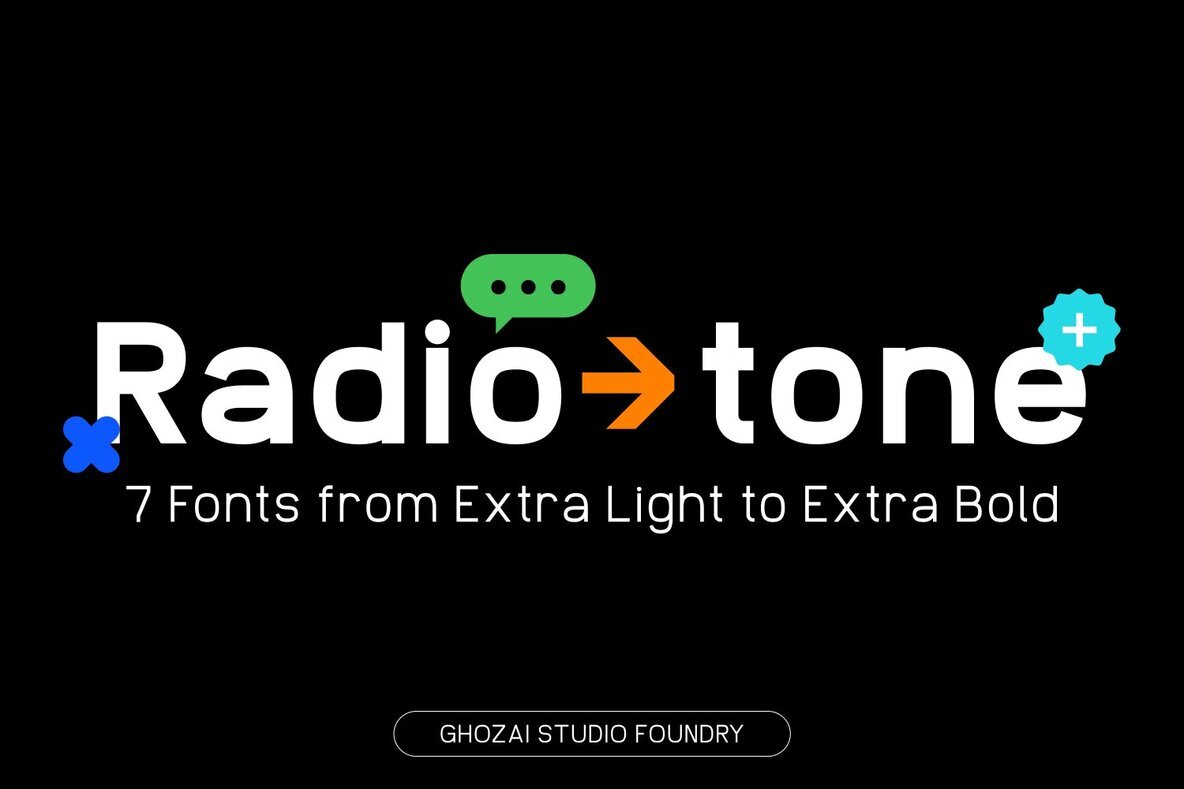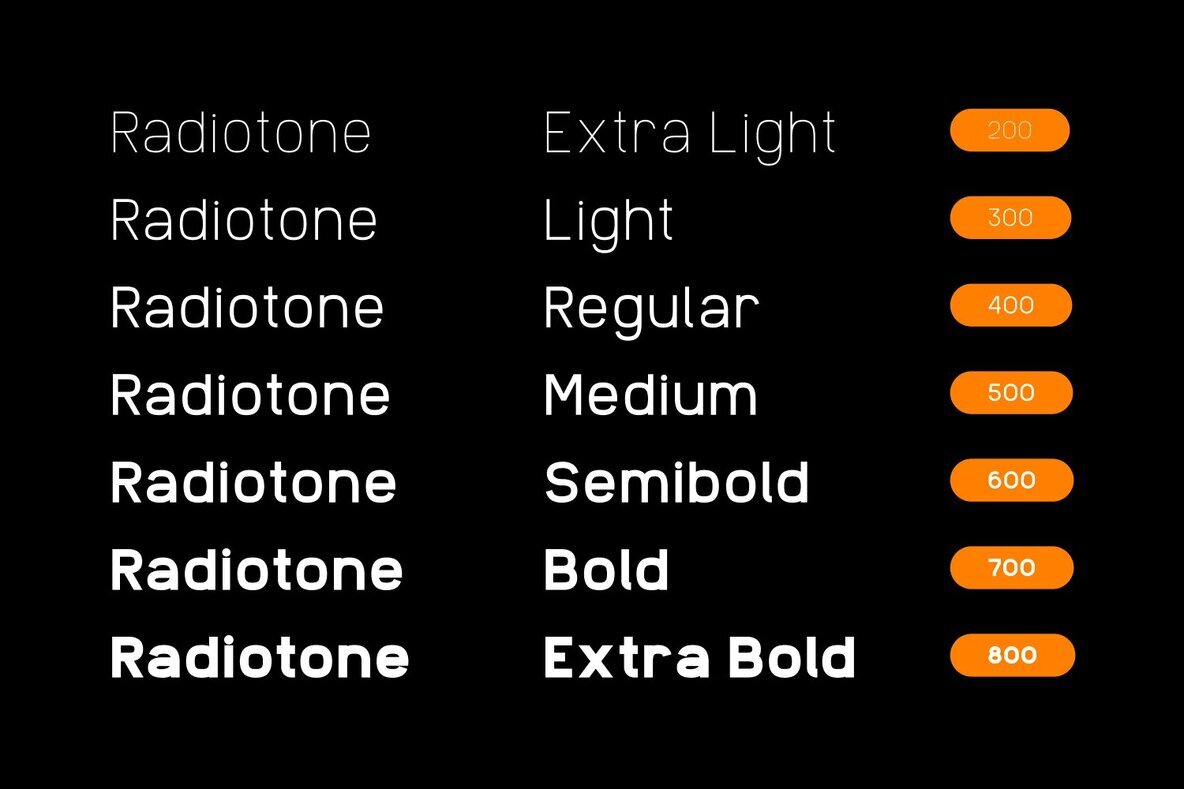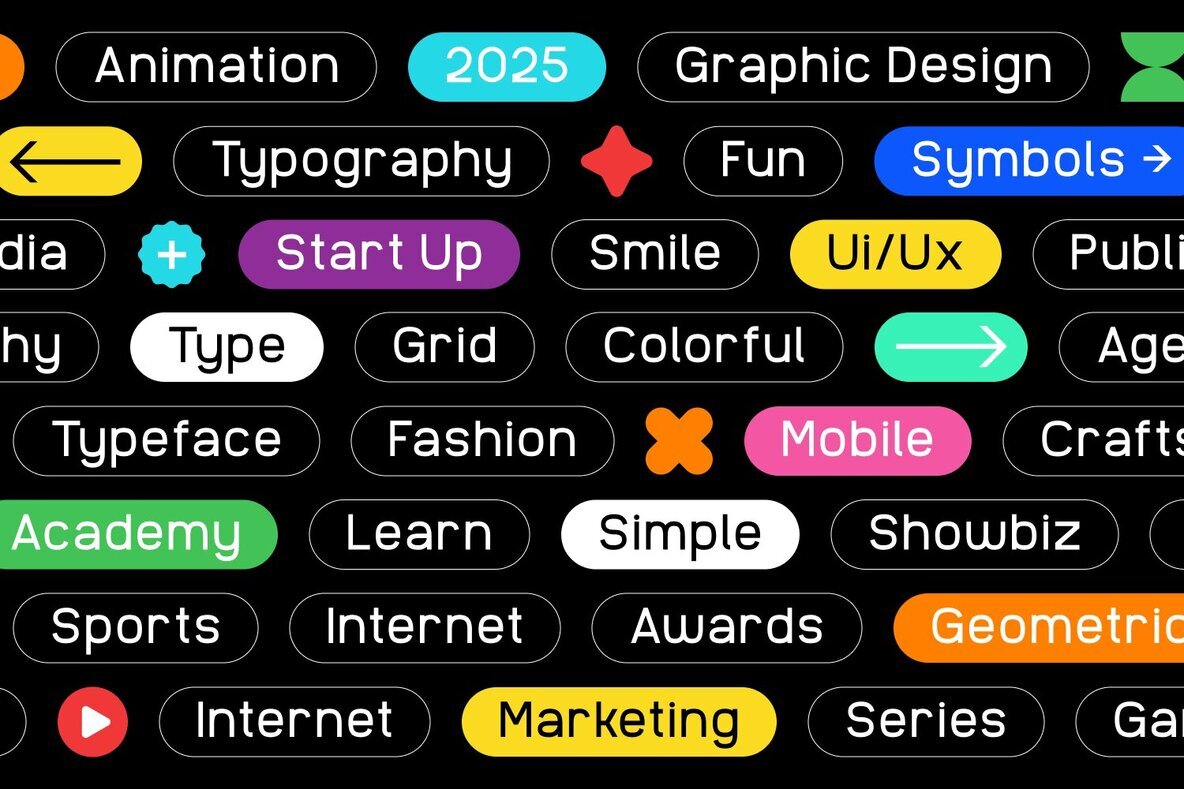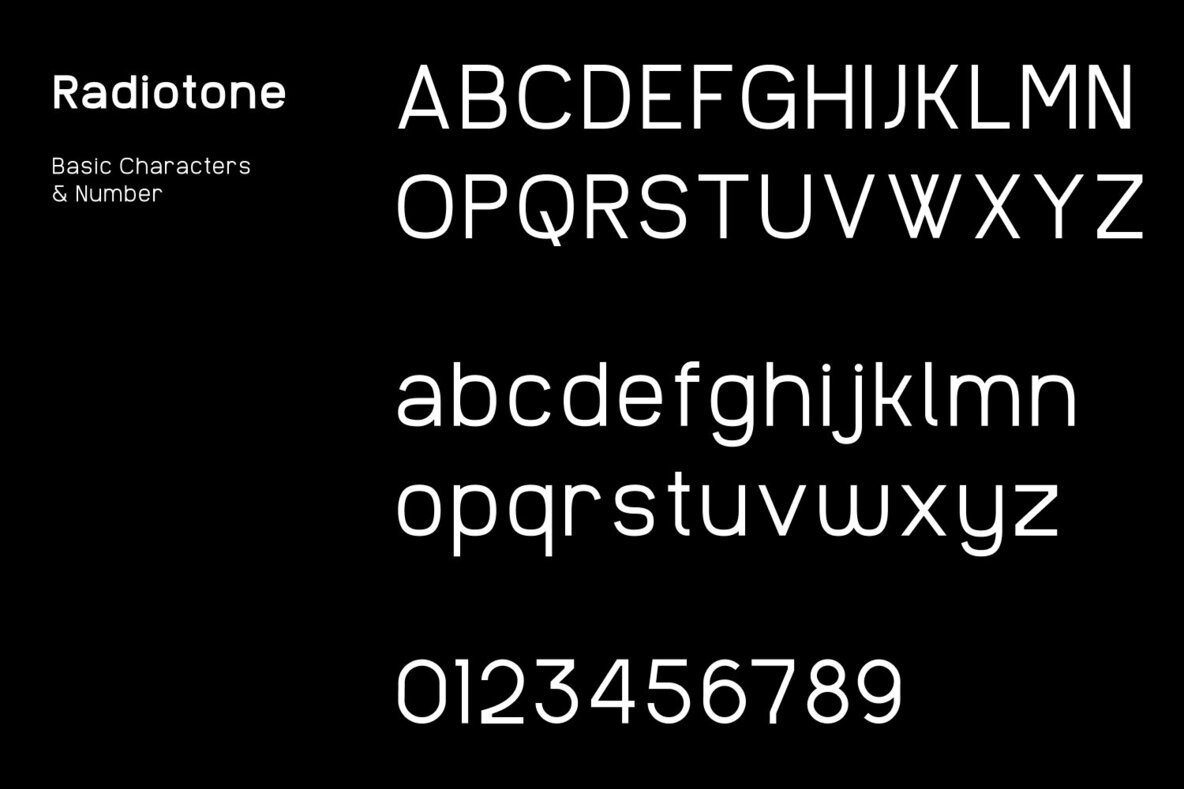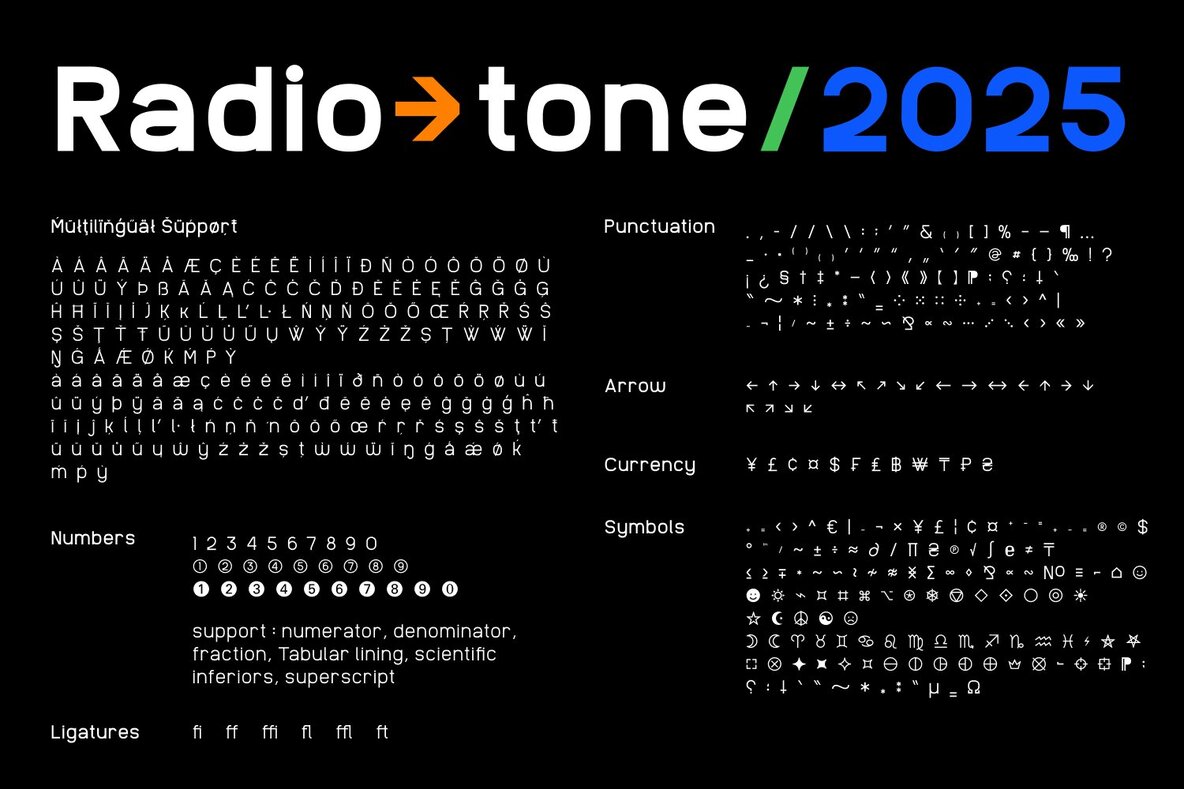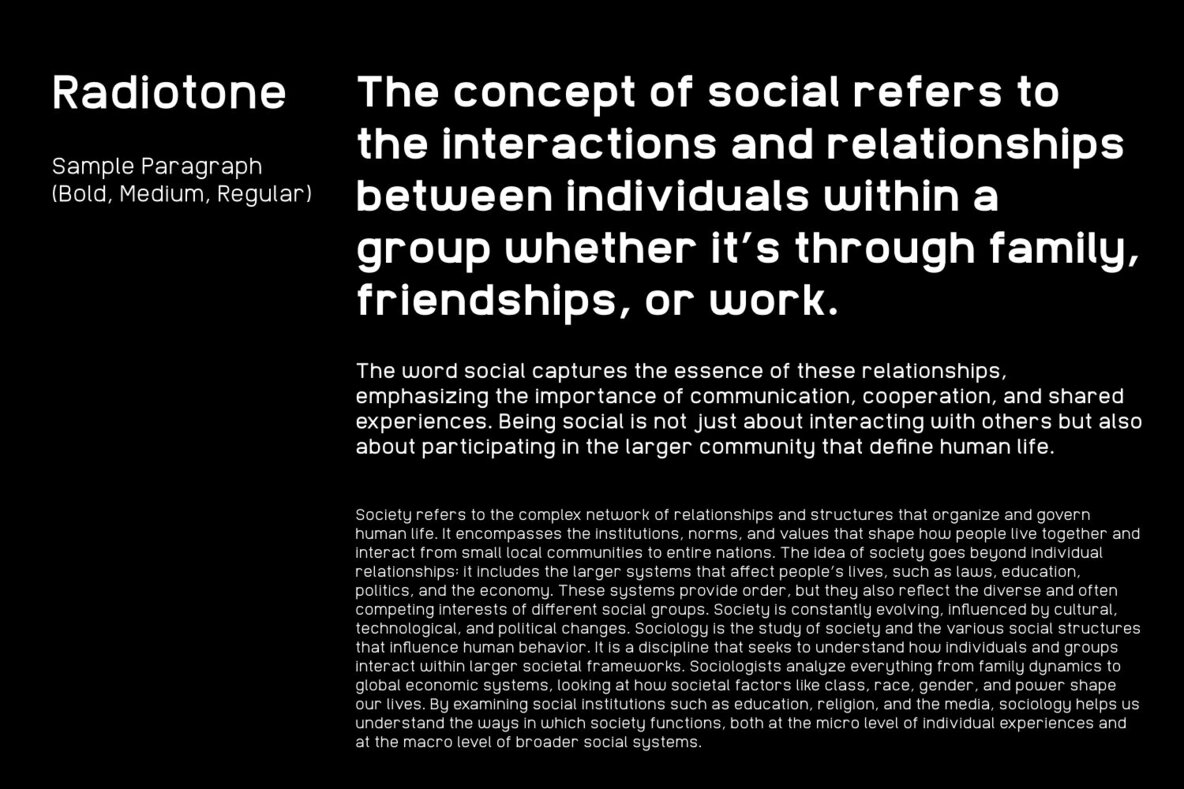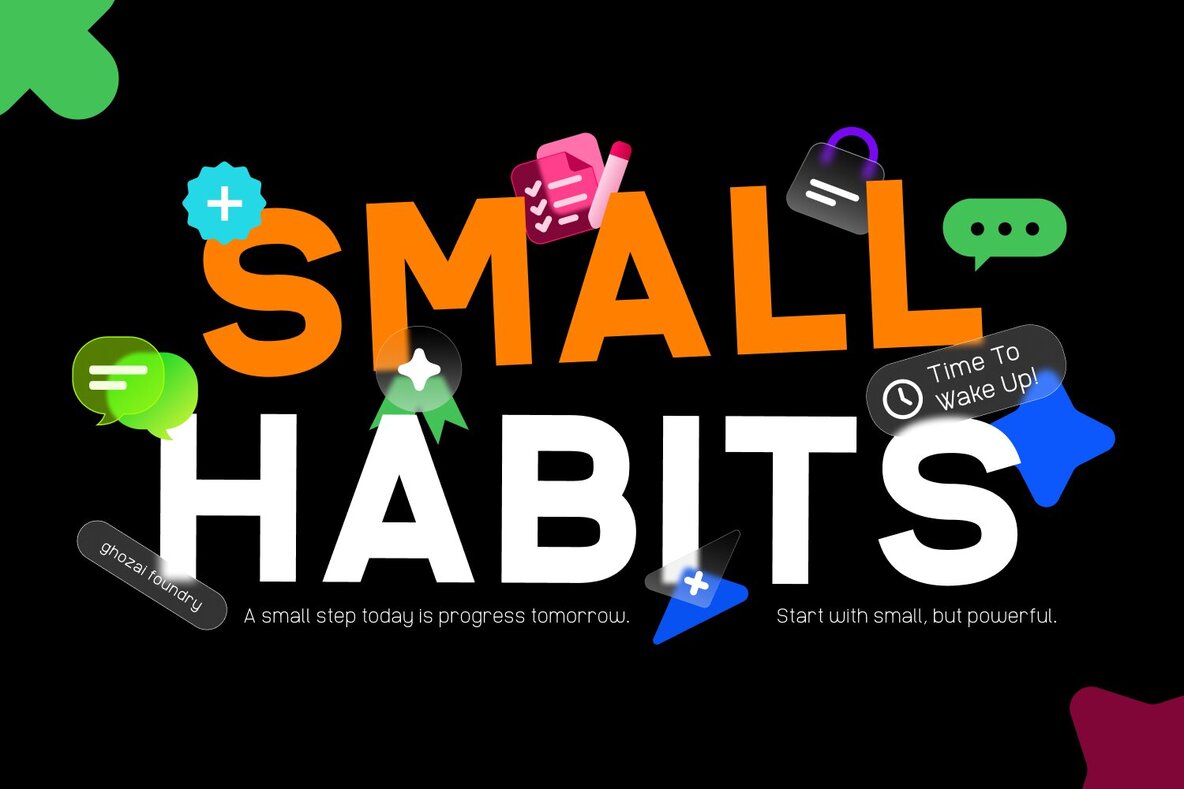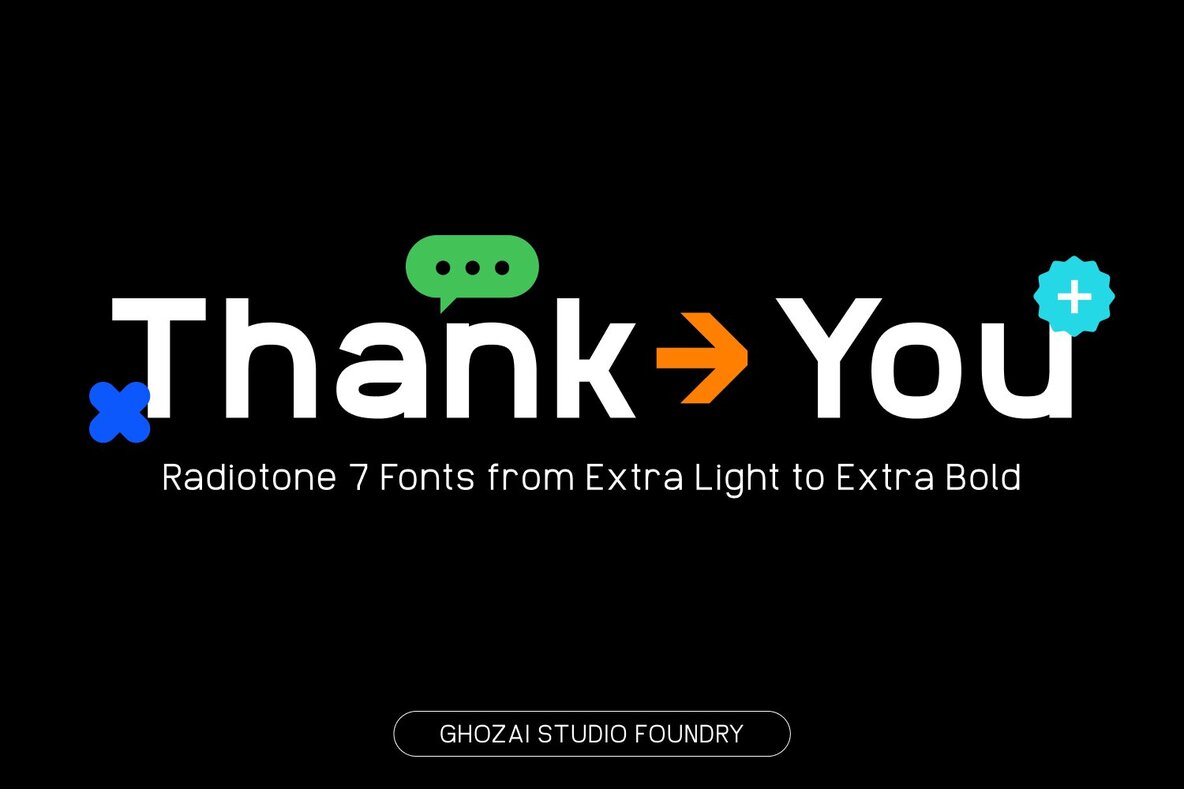
Radiotone Font
Radiotone is a contemporary grotesk-sans font family that offers seven distinct weights from Extra Light to Extra Bold. With a diverse selection of weights, abundant symbols, and robust OpenType features, along with multilingual glyph support, Radiotone promises adaptability for various design languages and needs. Its streamlined, bold aesthetic suits it for numerous applications such as display, branding, signage, festival posters, and sports-related designs. From crafting impactful headlines to creating unique logos and clear signage, Radiotone merges style with practicality. Its extensive flexibility allows seamless integration across different design genres, providing a bold and modern touch to any project.Radiotone: Versatile Grotesk-Sans Font Family